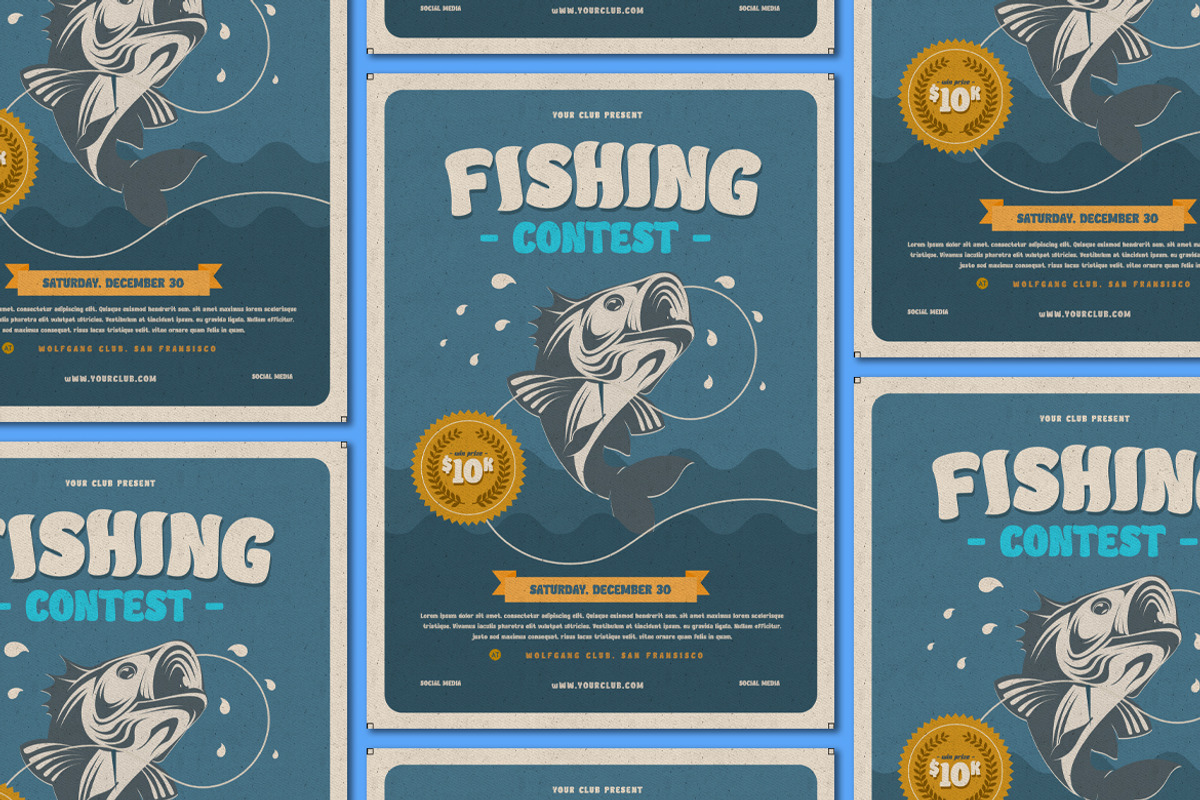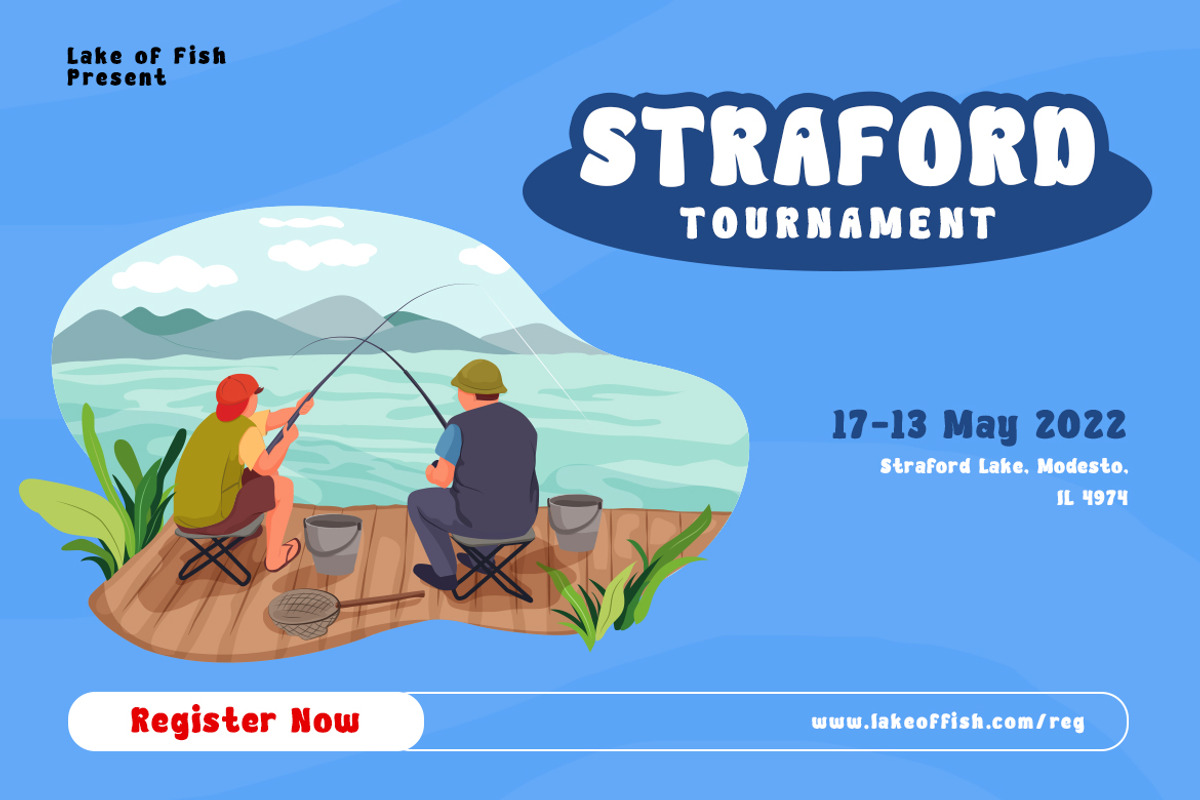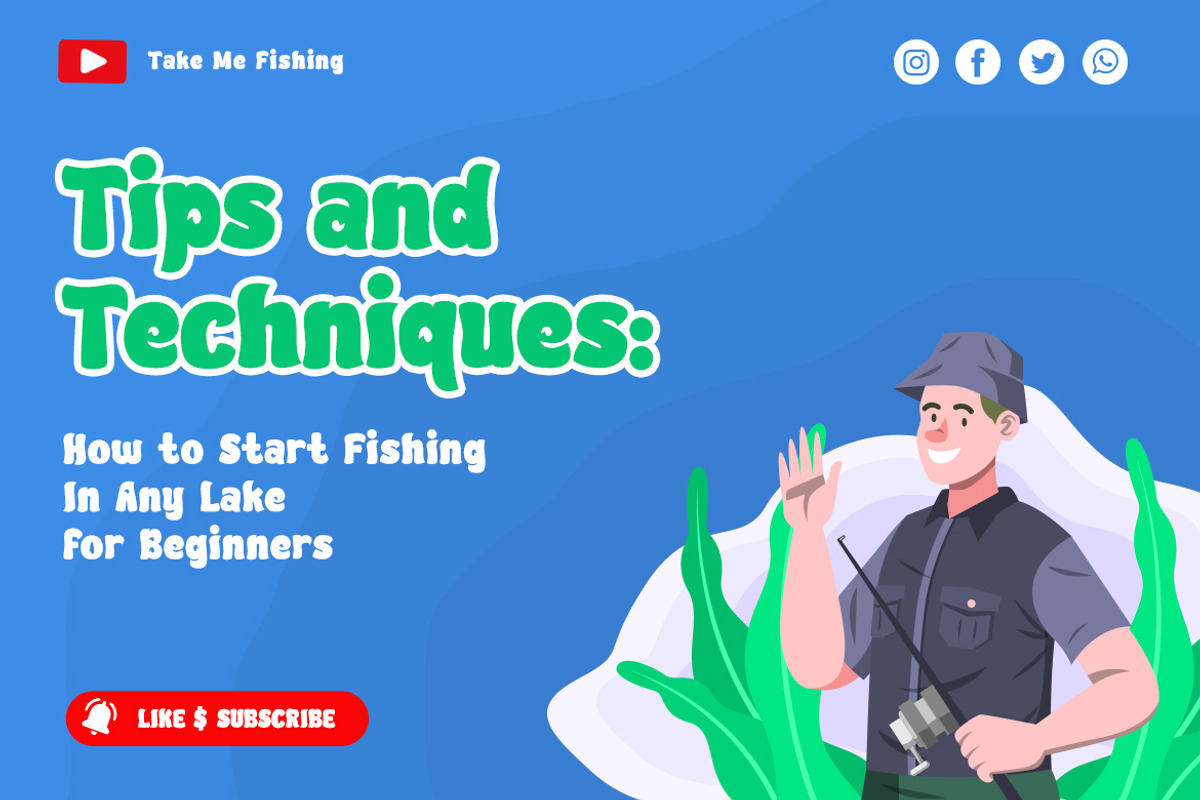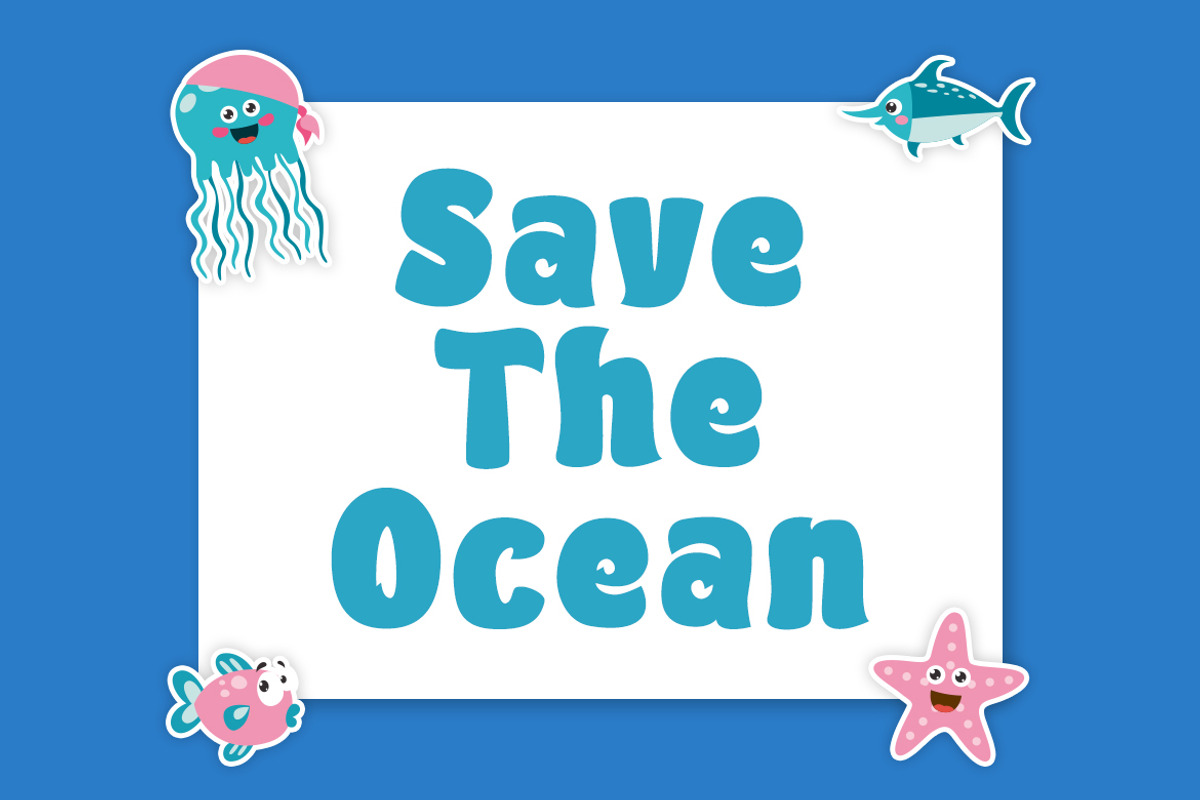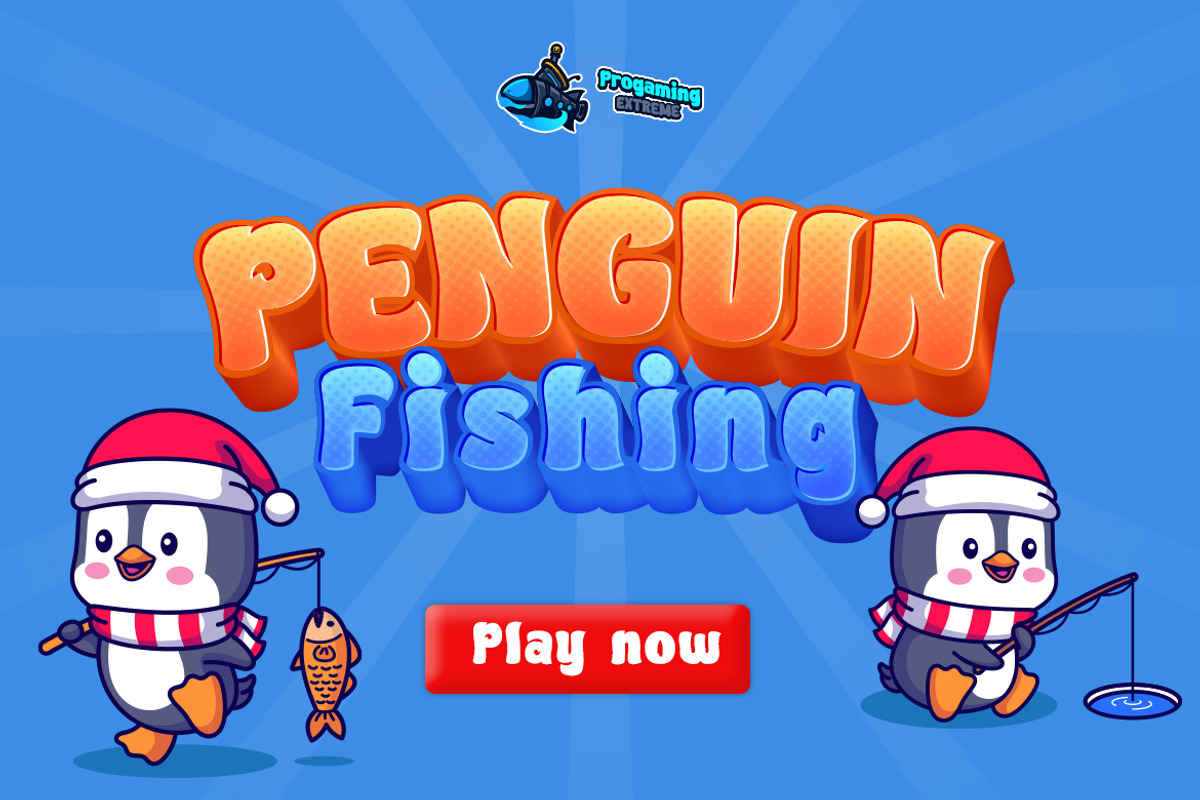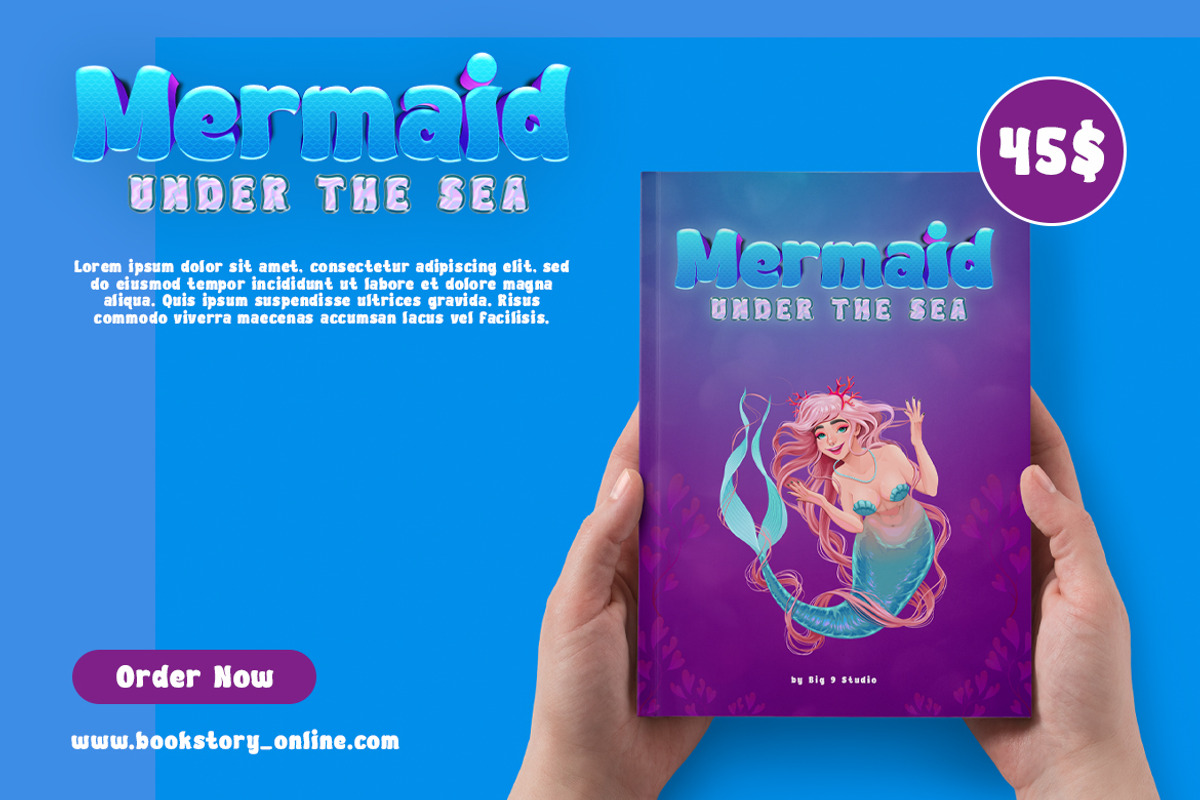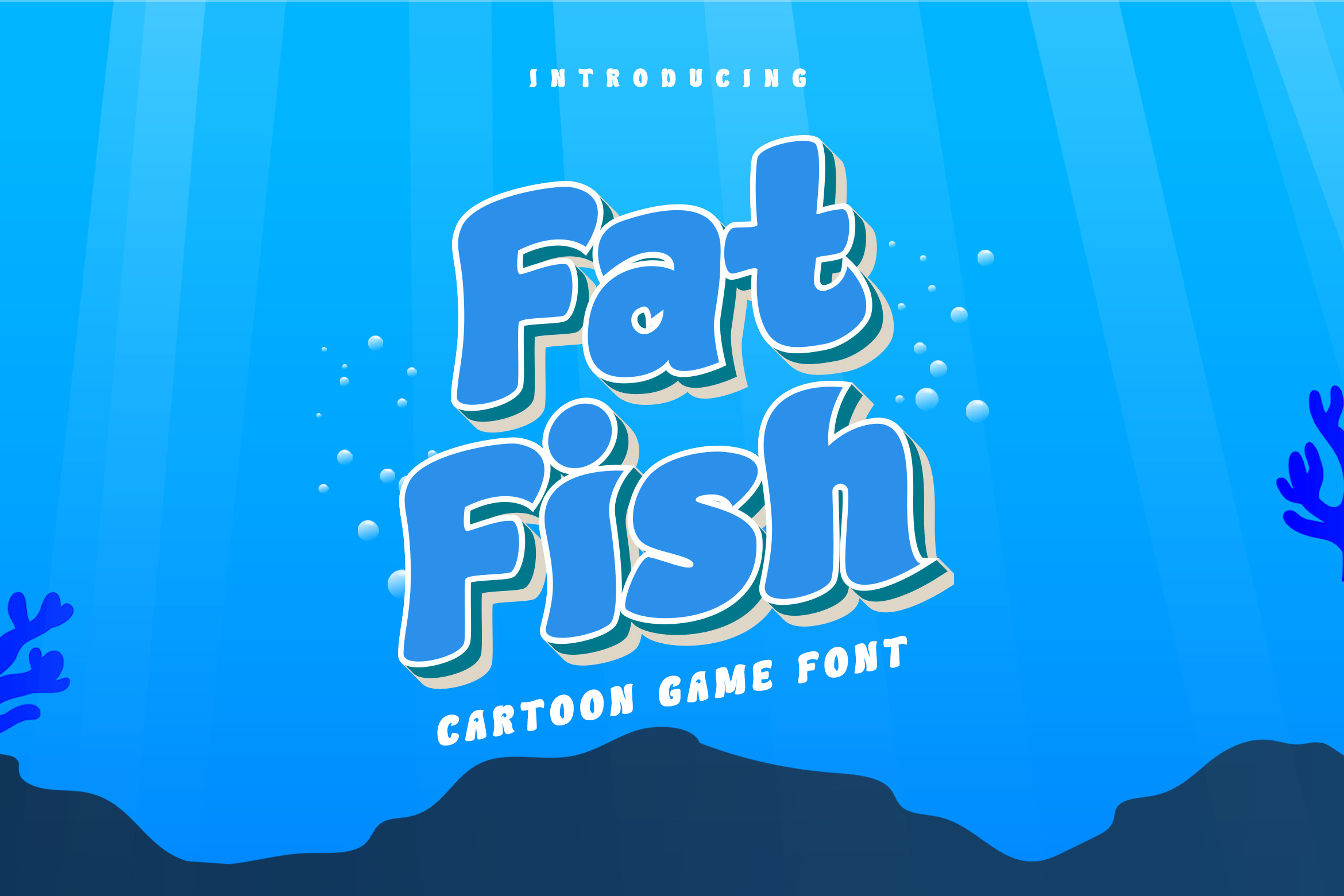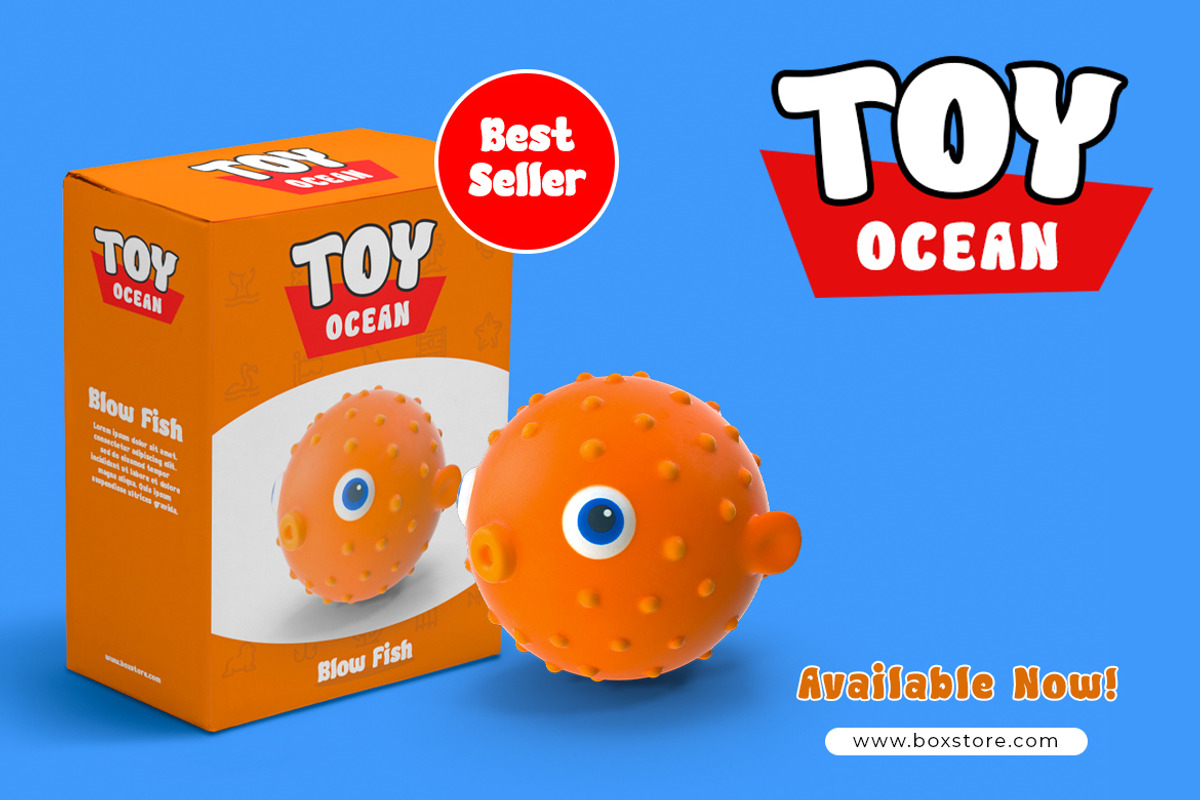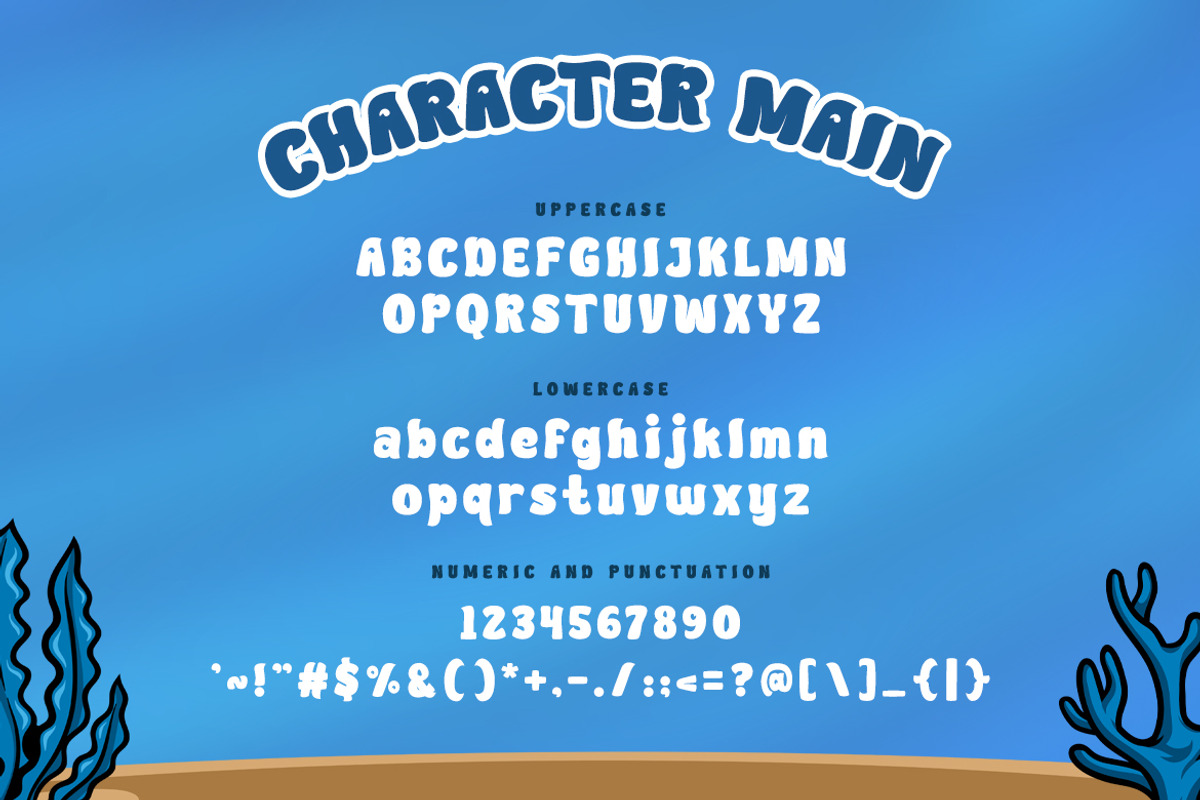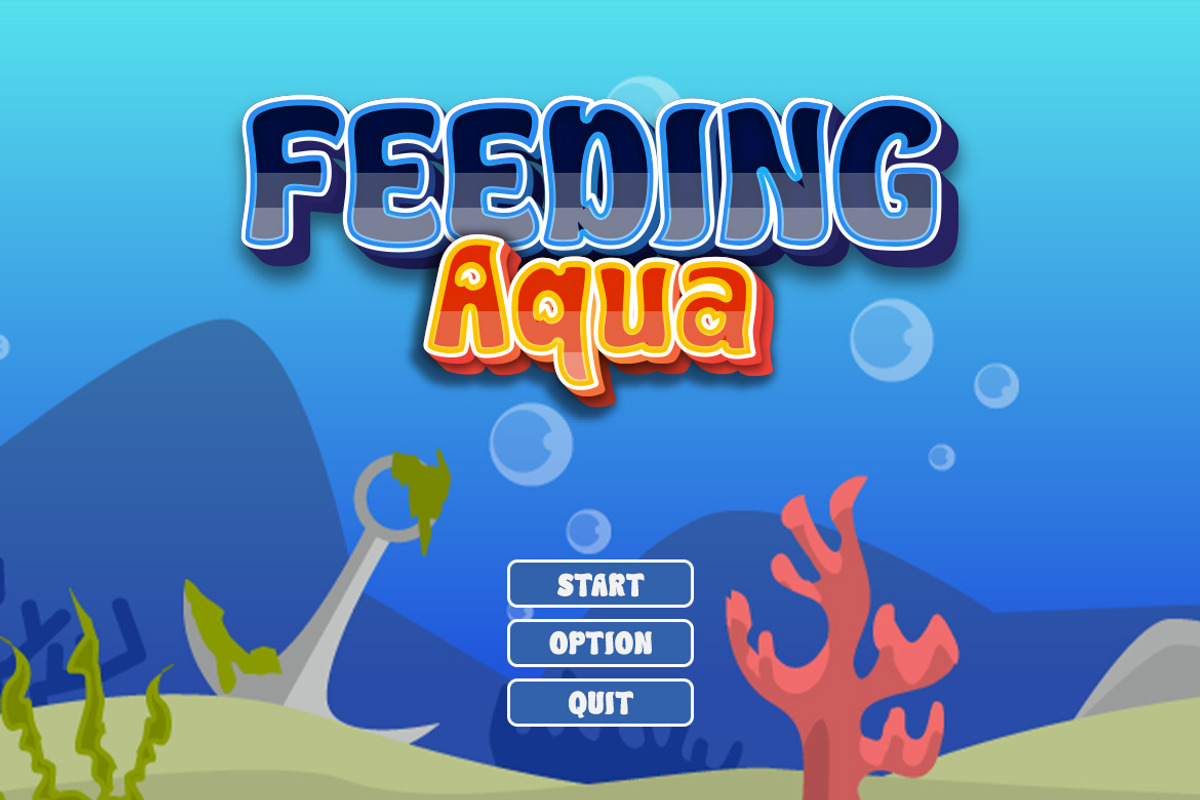
Fat Fish – Cartoon Gaming Font
Introducing “Fat Fish” – the perfect Cartoon Gaming Font for your next project! This font is designed to capture the essence of fun and playfulness, making it an ideal choice for Instagram and YouTube posts, movie titles, and gaming websites.
With its cute and funny appearance, Fat Fish is a versatile display font that can be used for a wide range of projects. Whether you’re targeting kids or adults, this font is sure to catch their attention and make them smile. The Sans Serif style gives it a modern touch that’s perfect for today’s digital world.
Created by Modestype, a leading font design studio, Fat Fish is a high-quality font that delivers a unique and engaging visual experience. It comes with plenty of nature foliage and floral elements, giving it an organic and natural style that’s perfect for projects that require a touch of nature.
With its bold and playful design, Fat Fish is a popular choice for gaming websites, making it a great gaming font. It’s also perfect for use in cartoons and other animated projects, making it a versatile and fun font that’s sure to capture your audience’s attention.
Overall, if you’re looking for a cute, funny, and engaging font for your next project, Fat Fish is the perfect choice. With its modern design and organic style, it’s sure to make a lasting impression on your audience. Try it today and see for yourself why Fat Fish is one of the most popular Cartoon Fonts available!